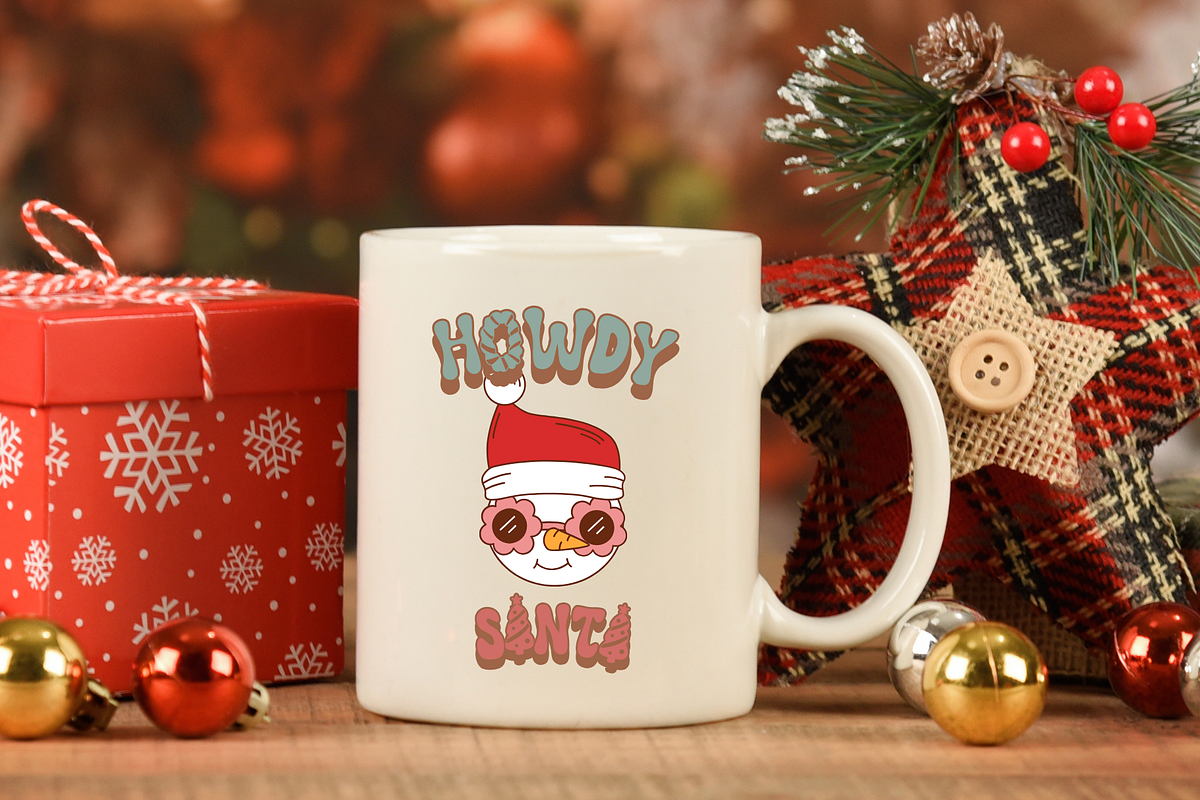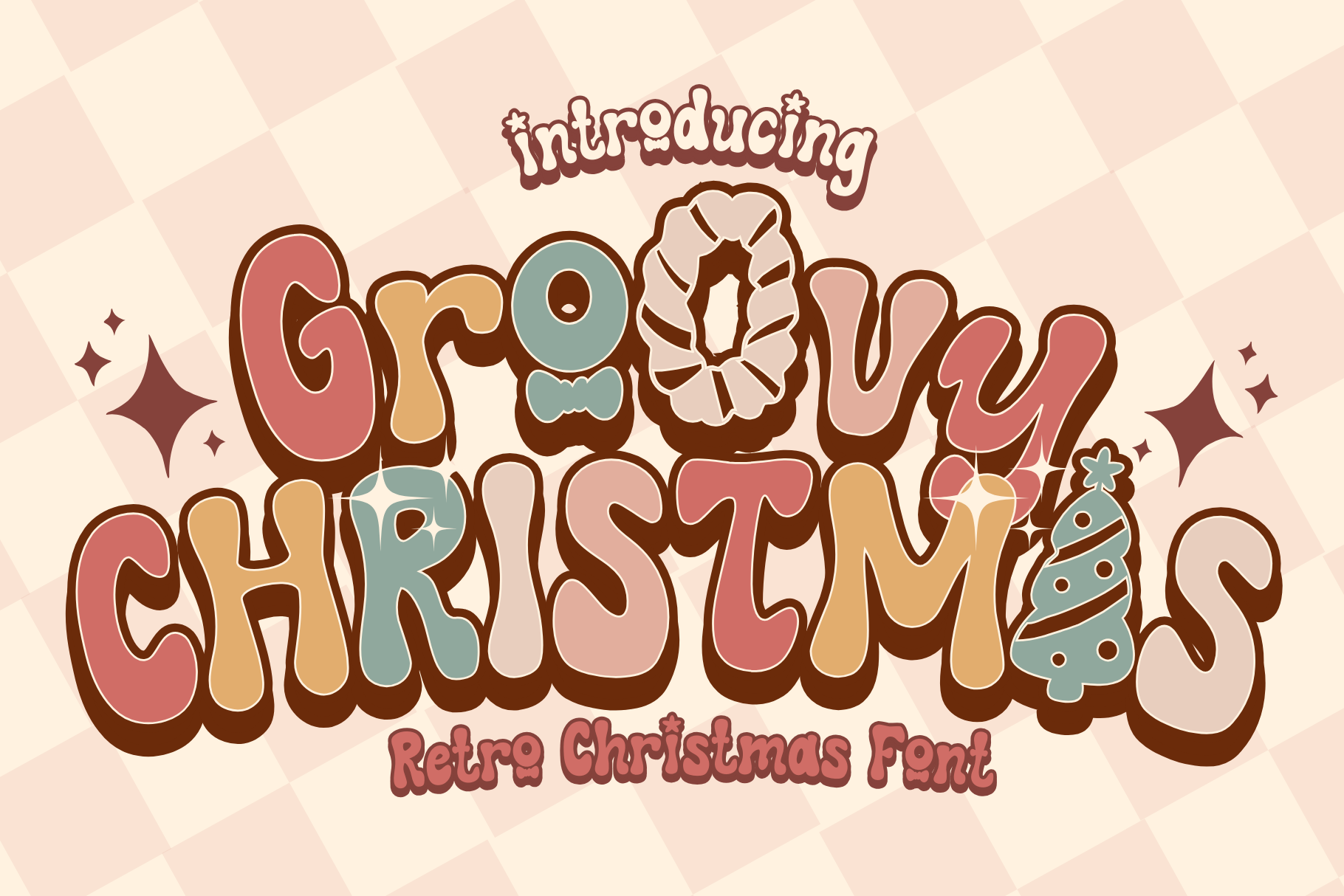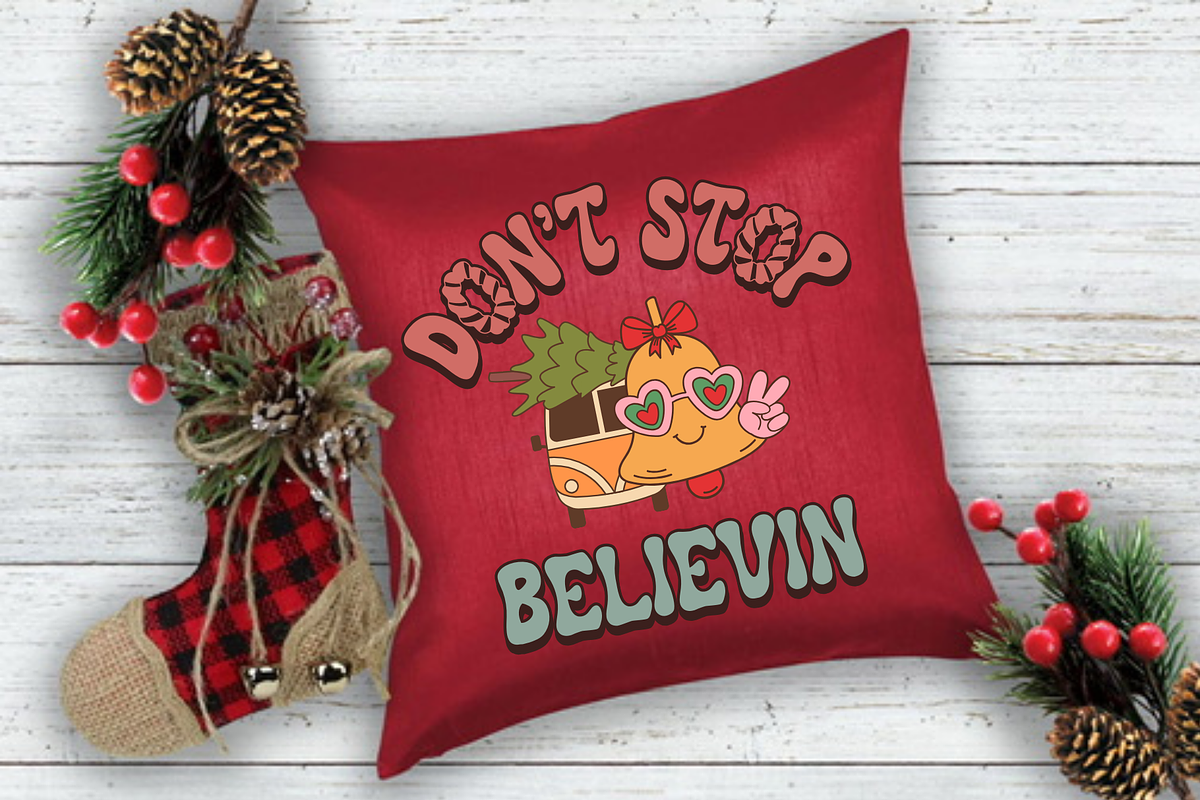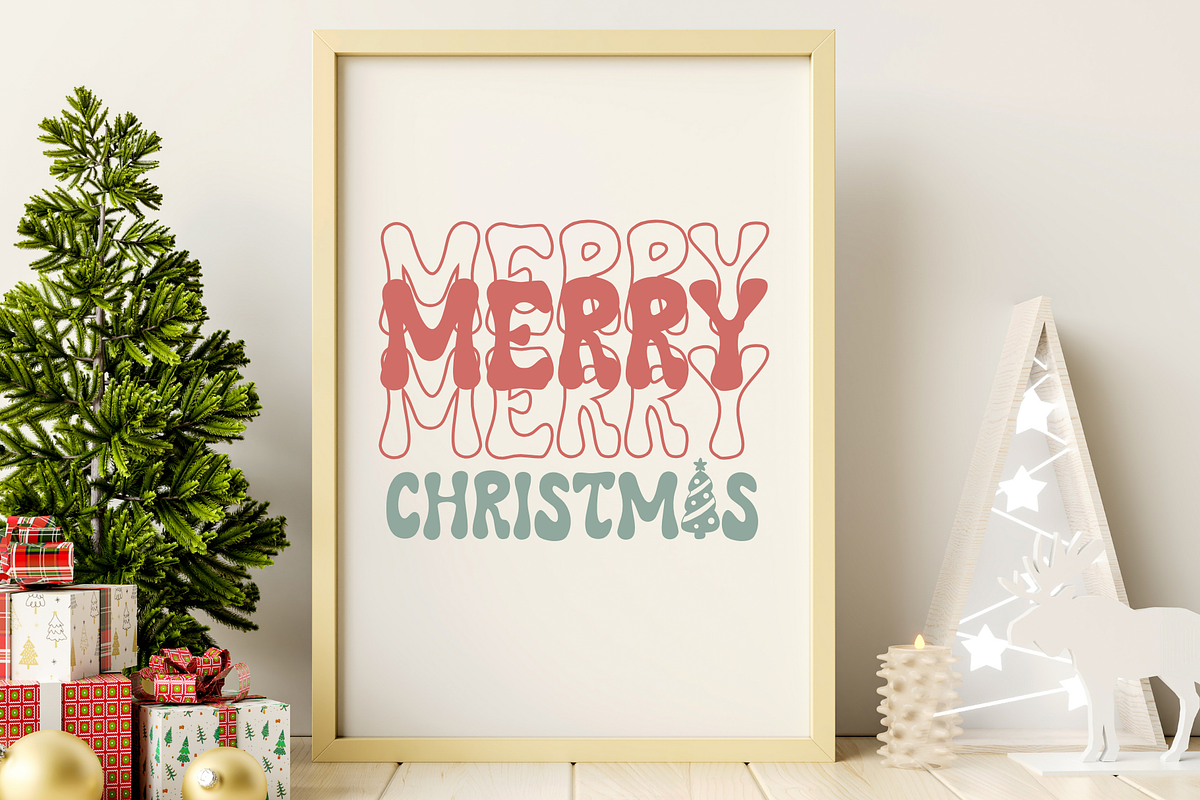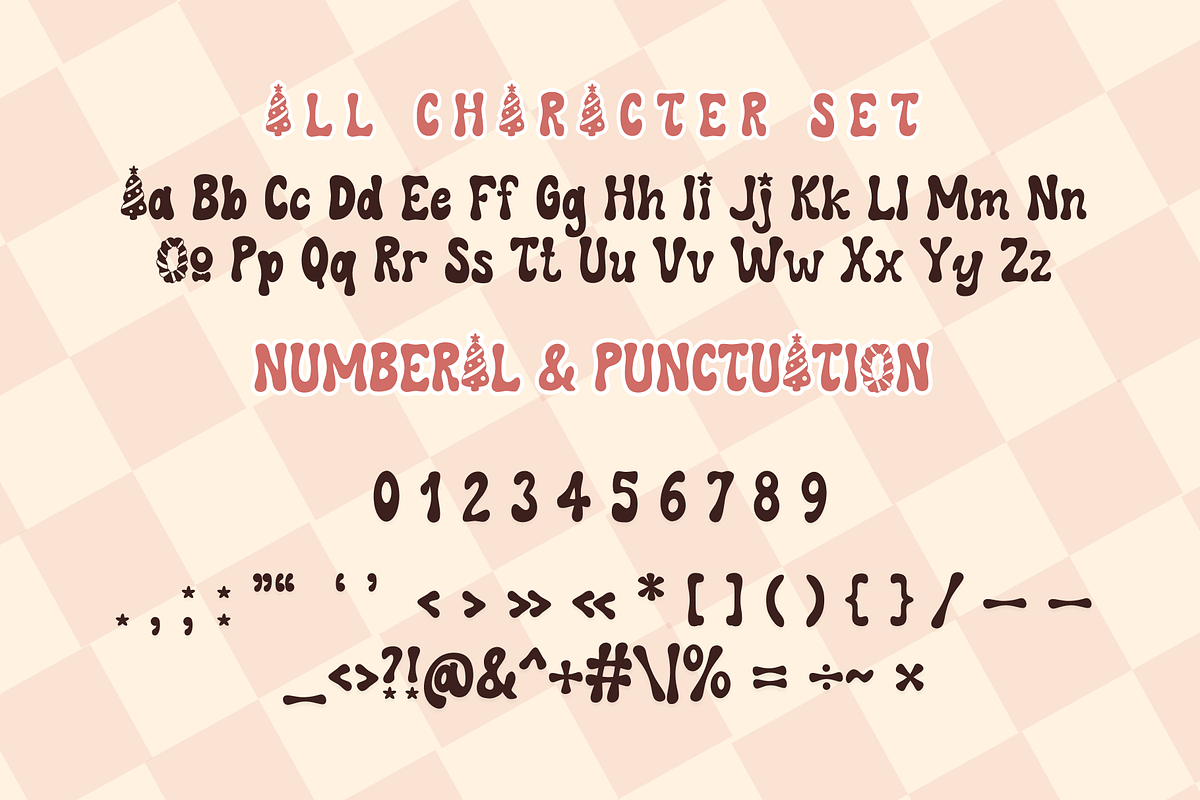
Groovy Christmas is a Christmas font
Groovy Christmas is a retro groovy Christmas font. It embodies playfulness and authenticity and is the perfect choice for all your favorite projects such as blog posts, logos, branding, ads, invitations, greeting cards, planners, photo albums, decorations, and more. Add it to any of your designs, and enjoy the results!